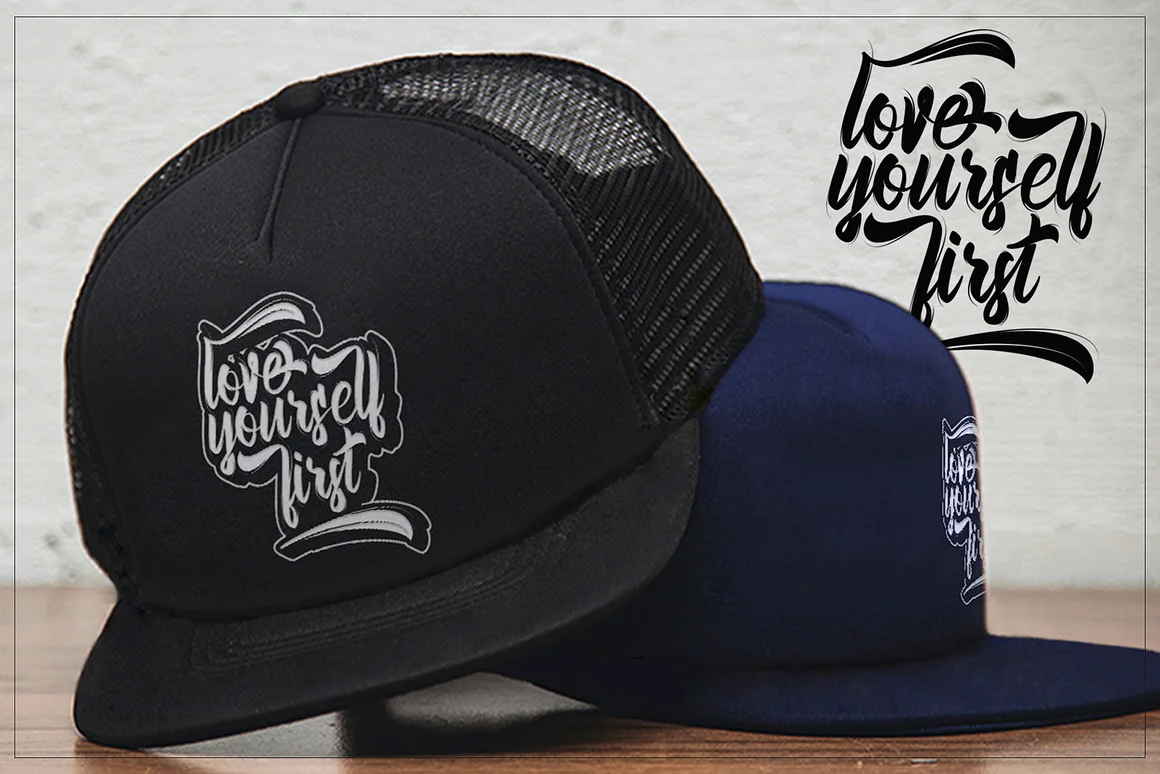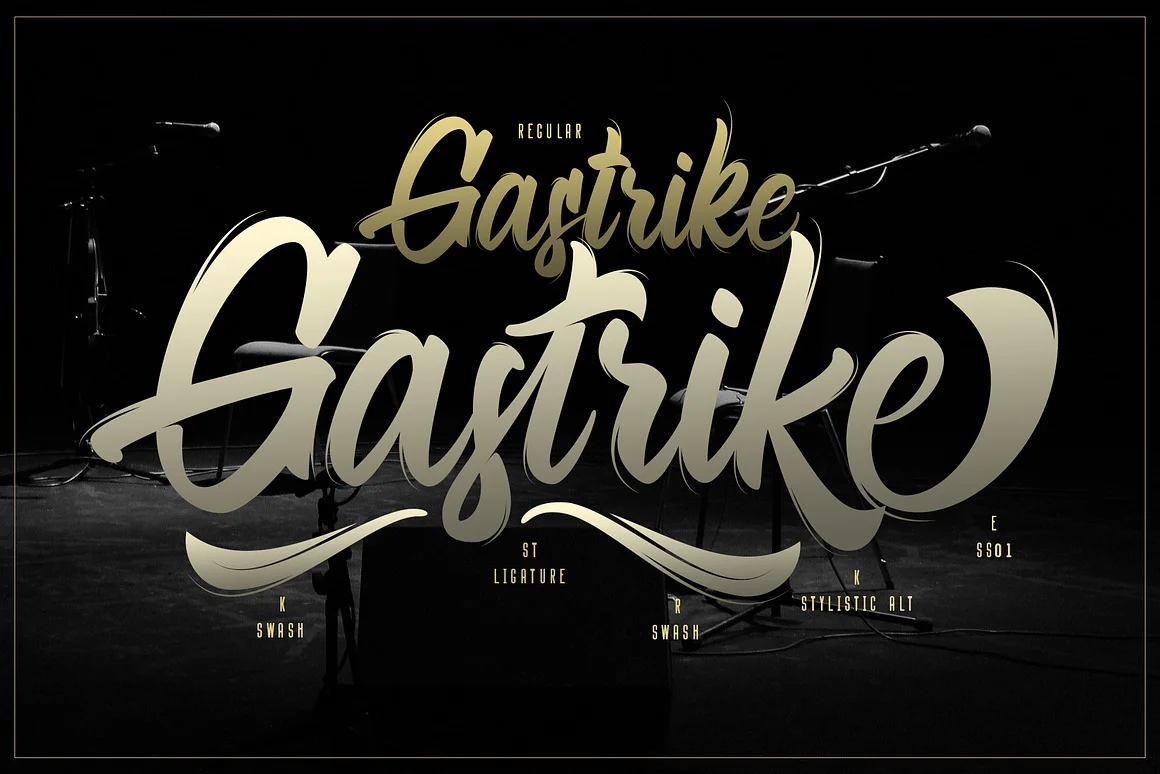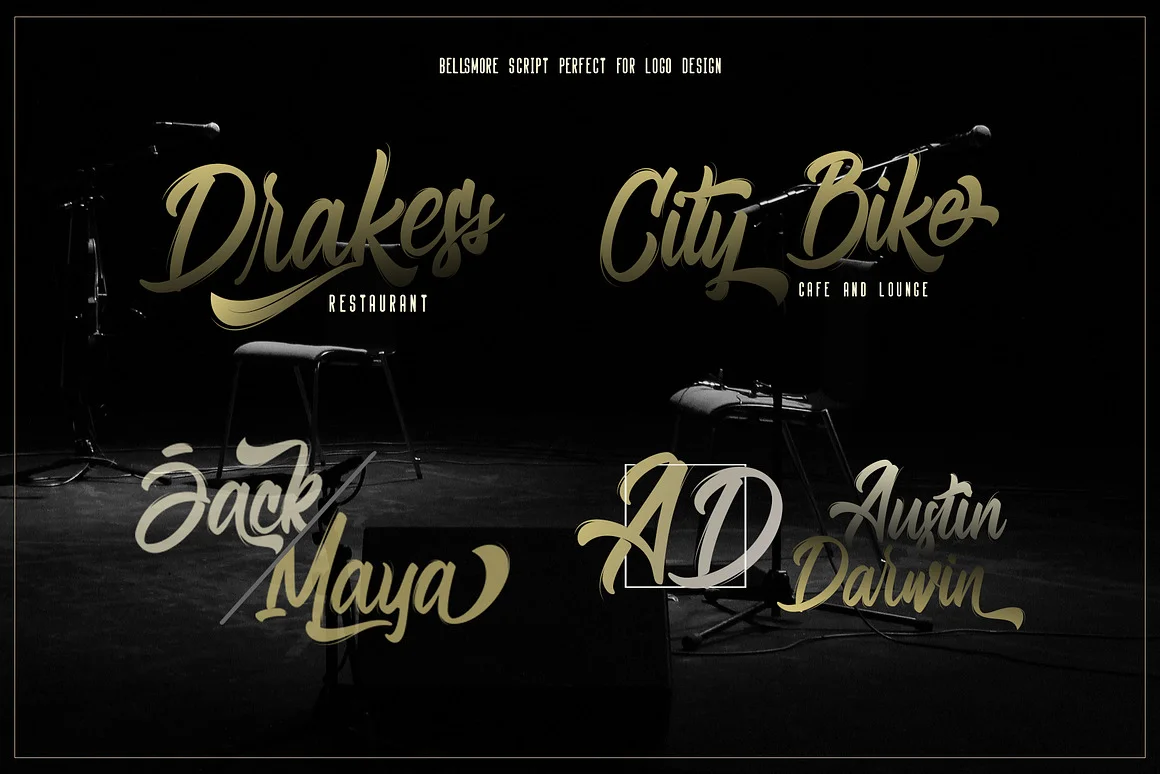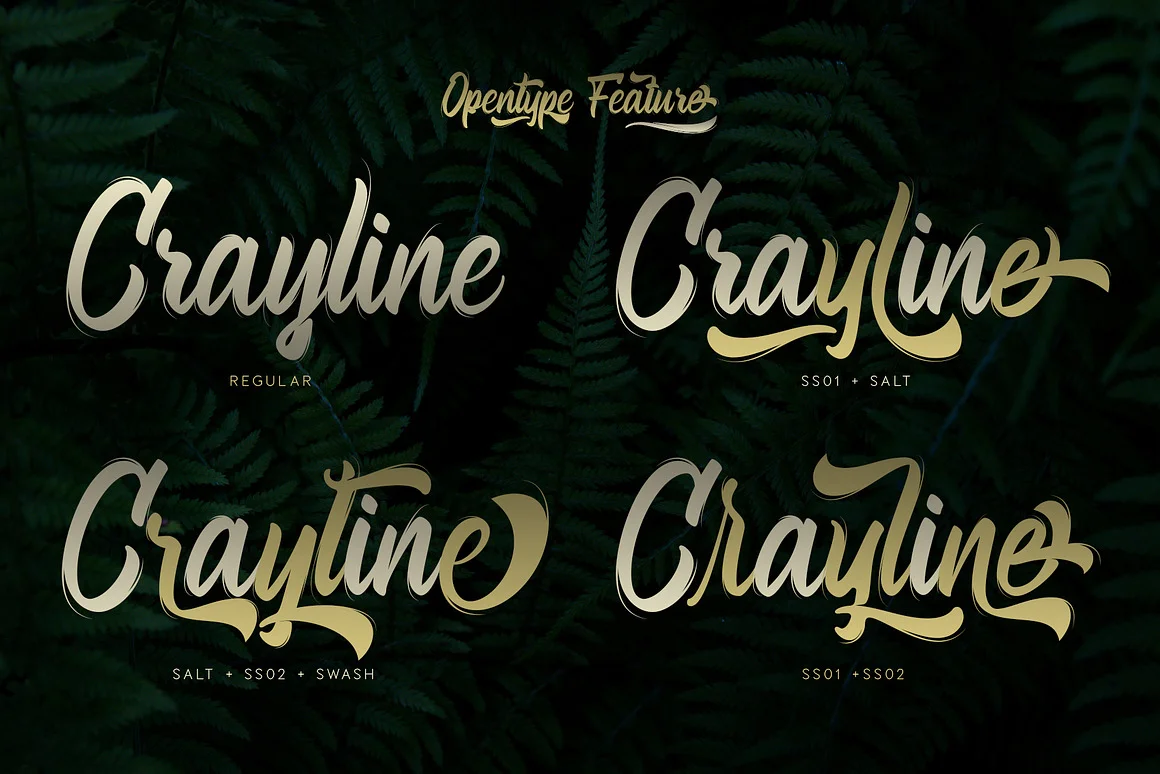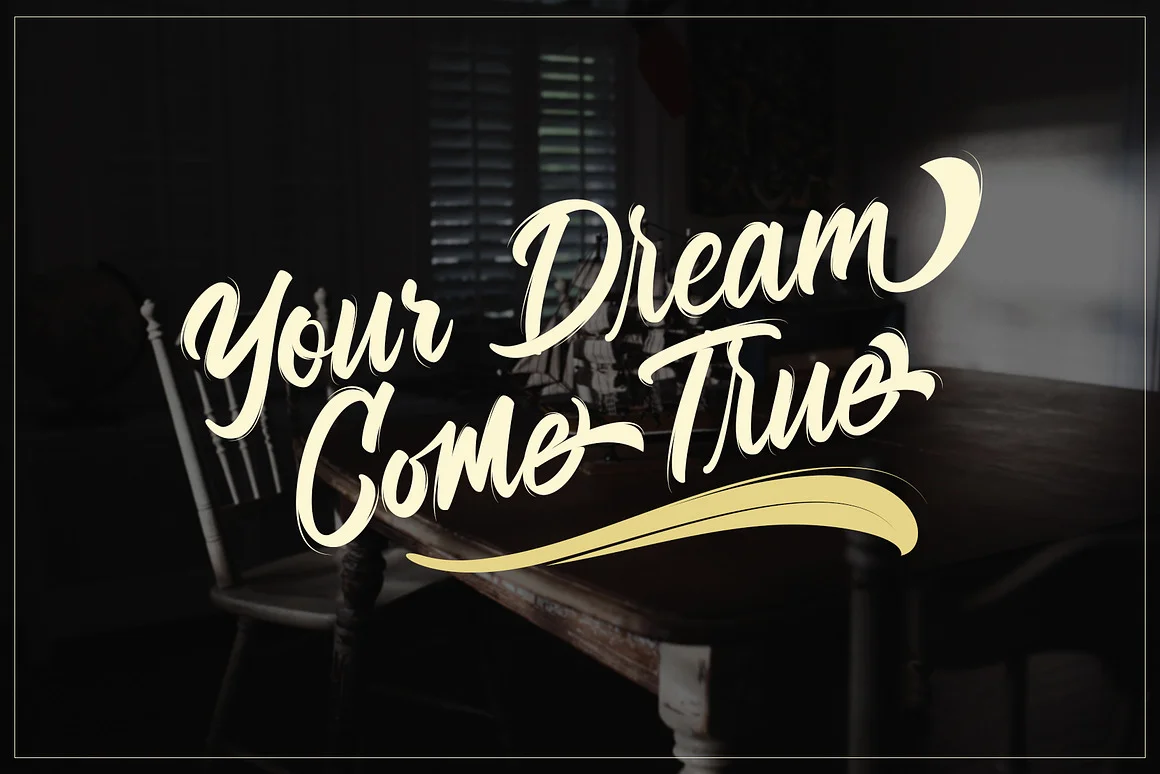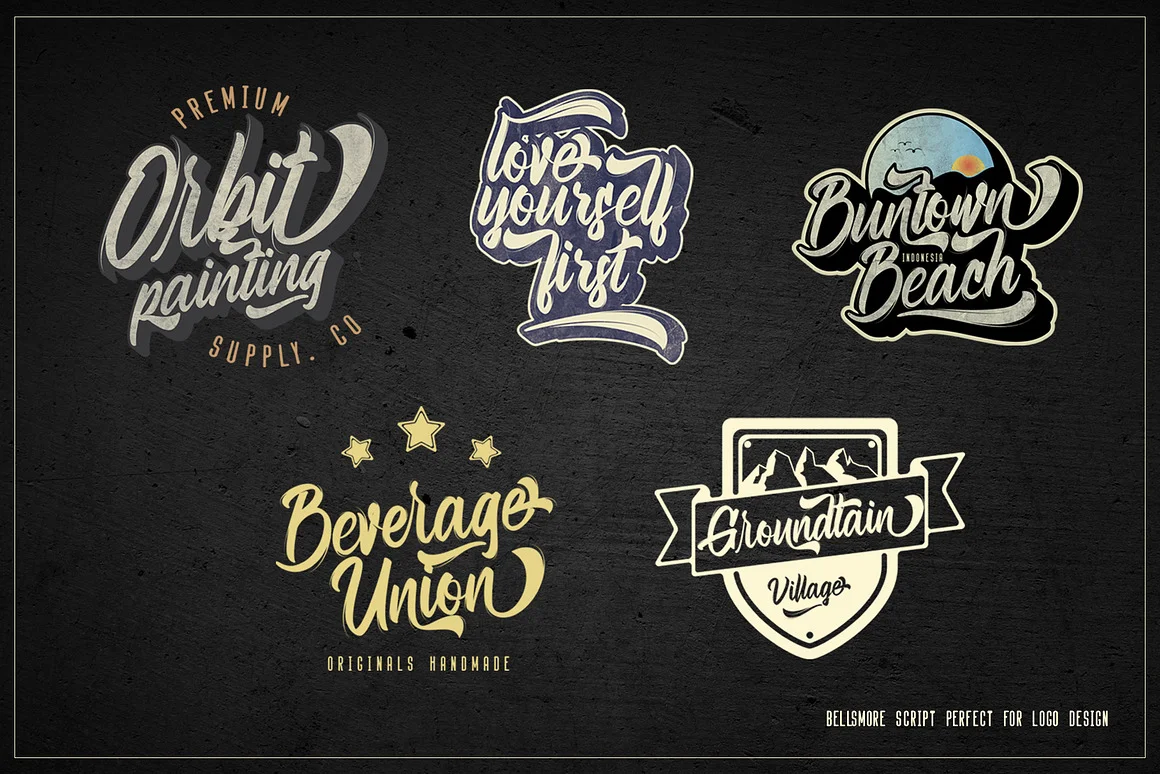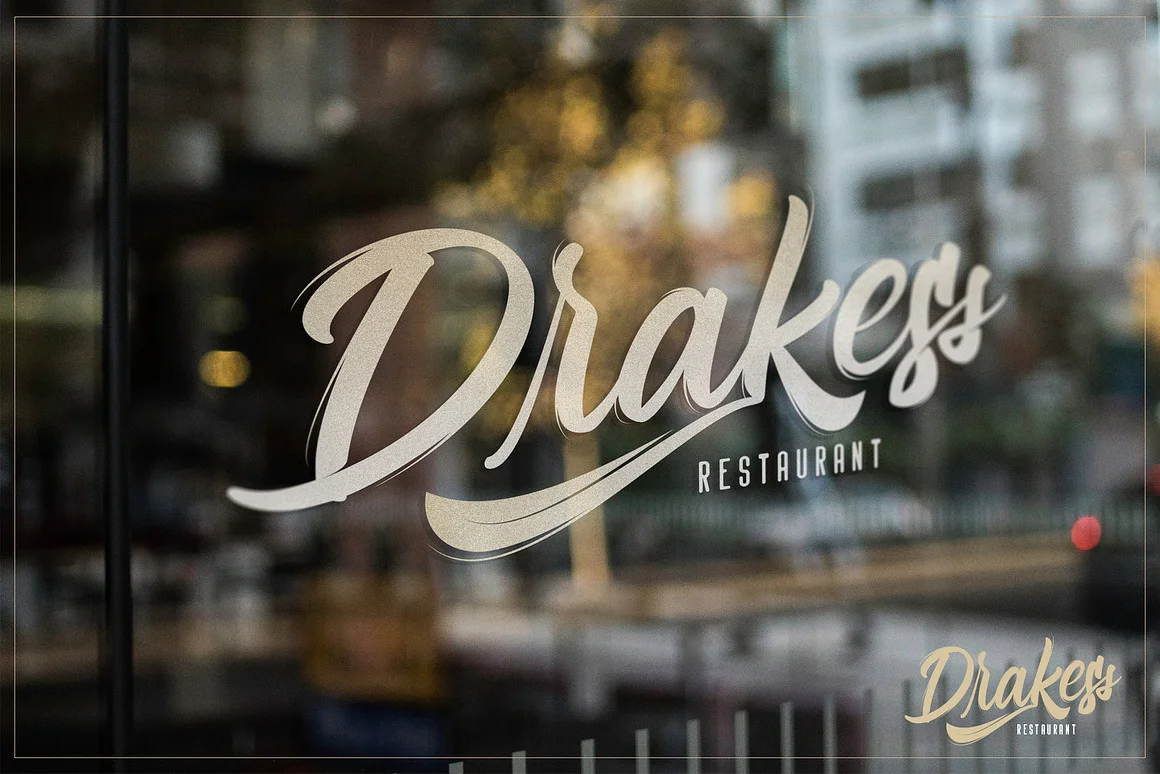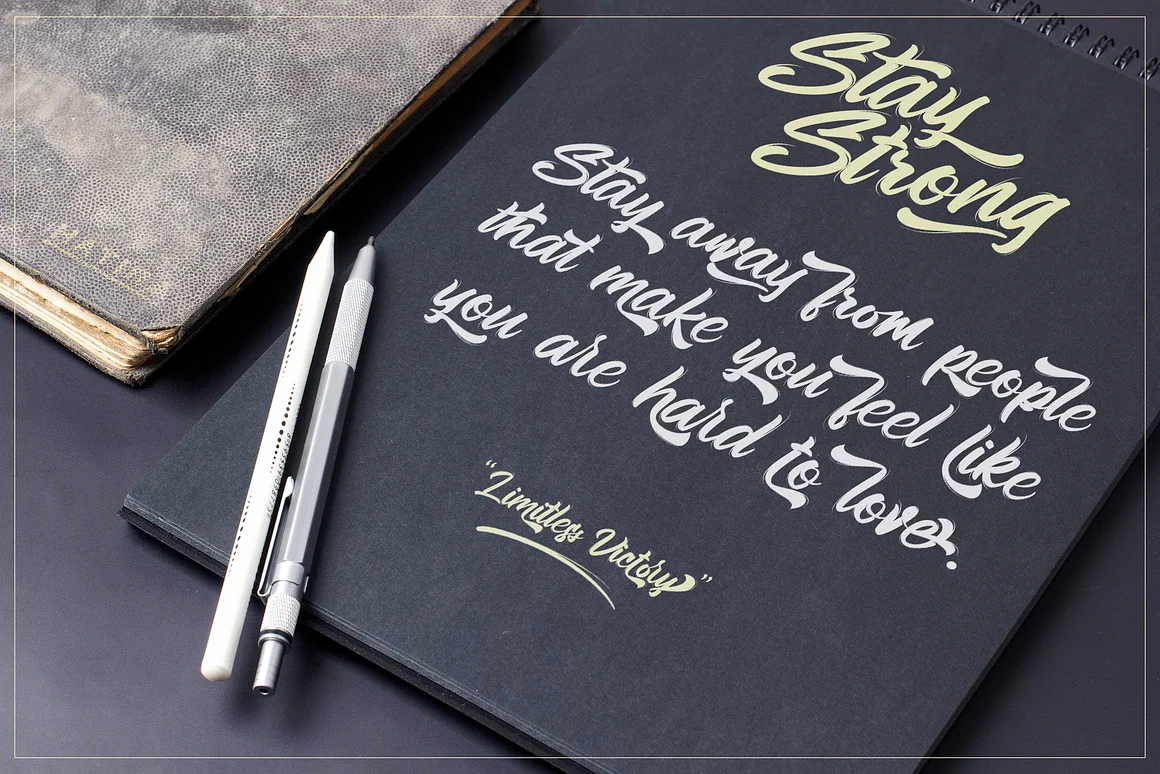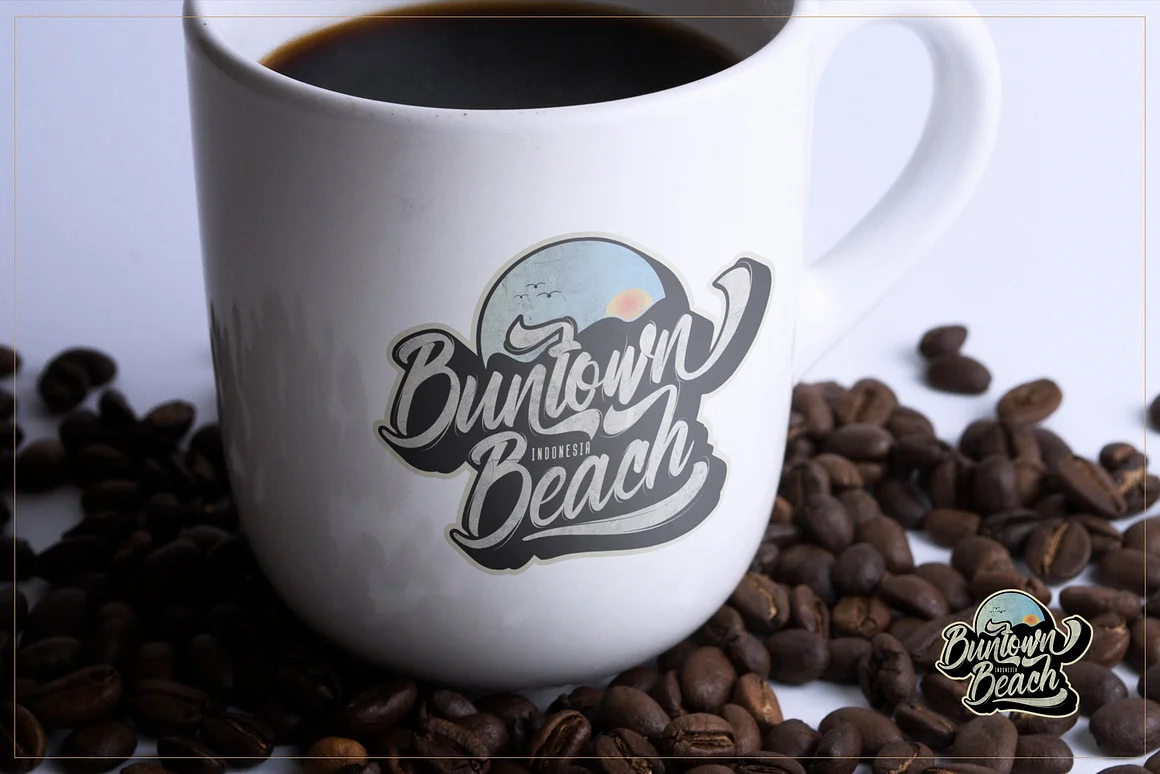
Bellsmore Brush Script Font
Bellsmore Brush Script Font is perfect for logos, branding, wedding invitations, social media graphics, and poster designs. Its flowing brush script adds a lively, handcrafted feel to any project.
What makes Bellsmore Brush Script Font exciting is its smooth, expressive strokes and natural letter connections, which give text personality and elegance. The font’s energetic design ensures your text captures attention with style.
The Bellsmore Brush Script Font family includes Regular, Bold, Italic, and Swash variations, giving designers flexibility to create dynamic and visually appealing typographic compositions.
For designers seeking a stylish, expressive, and versatile brush script, Bellsmore Brush Script Font is a perfect addition to any creative toolkit.